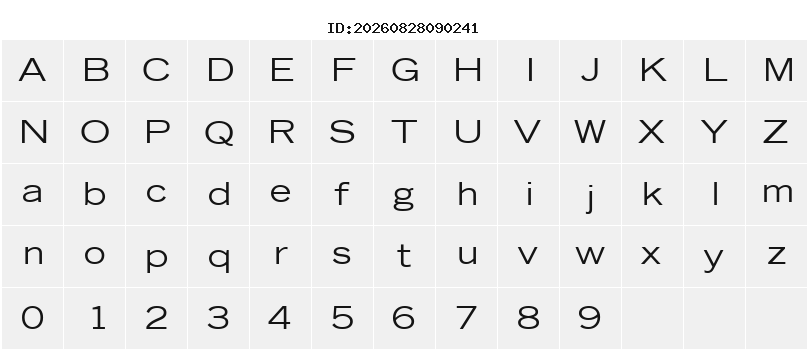
TradeGothic LT Extended Preview
About TradeGothic LT Extended.ttf
TradeGothic LT Extended.ttf is a modern, elegant sans-serif font designed for ultimate readability and visual harmony. Perfect for branding, headlines, web design, and print materials.